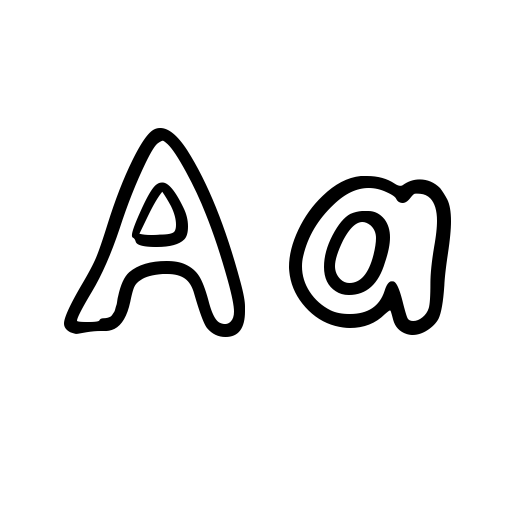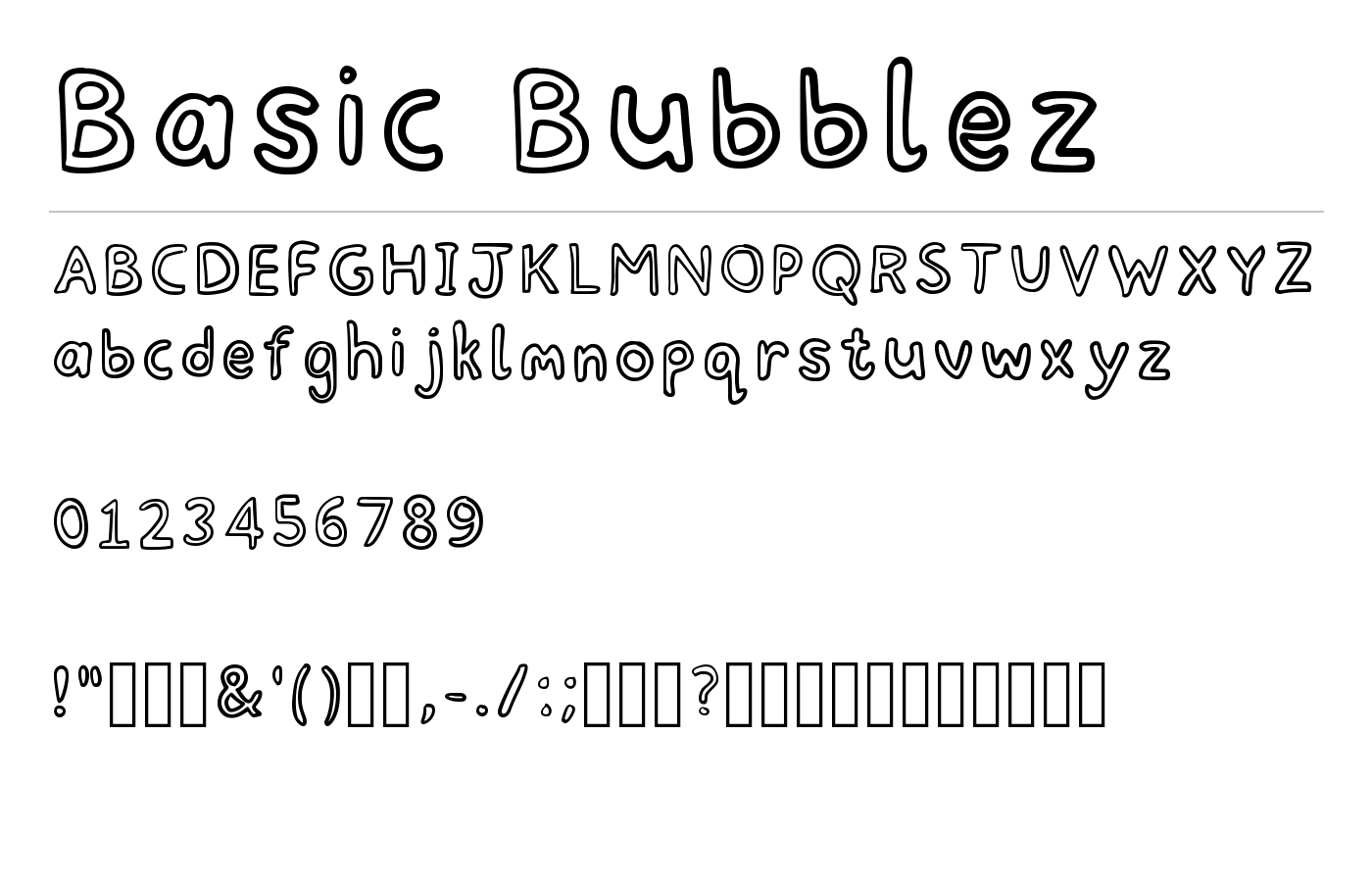
Basic Bubblez is a playful, hand-drawn sans serif font with rounded, bubbly letterforms that give it a casual and friendly feel. Its irregular weight and slightly quirky shapes make it perfect for informal designs, children’s projects, or any playful branding that wants to convey warmth and creativity. This font works best for headlines, logos, and fun packaging where approachability and charm are key.
Basic Bubblez Font
About Basic Bubblez Font